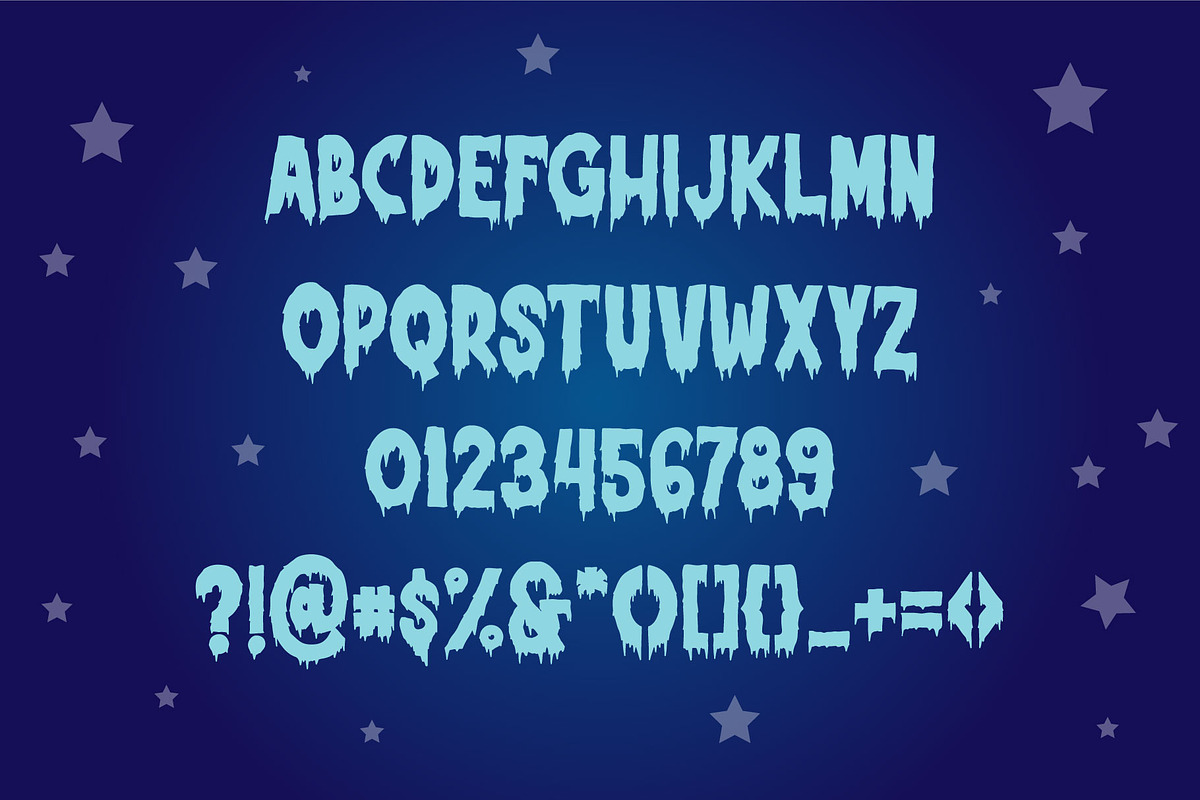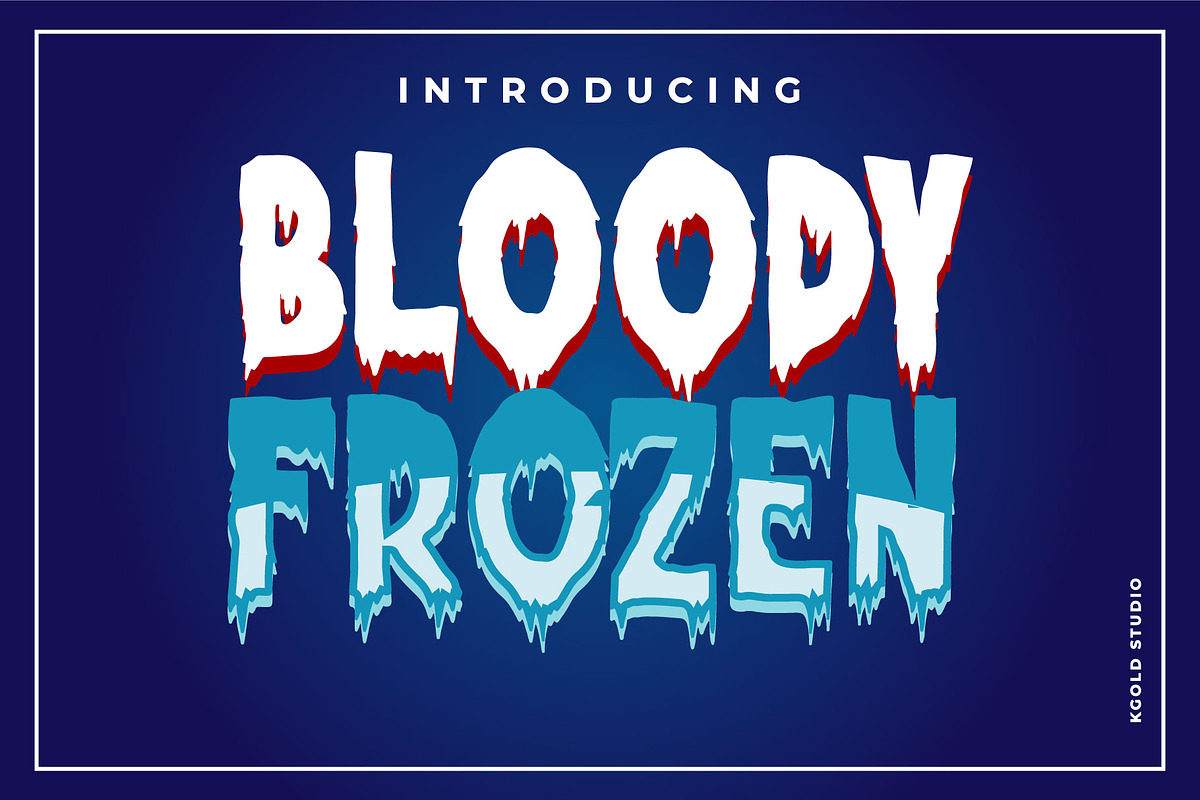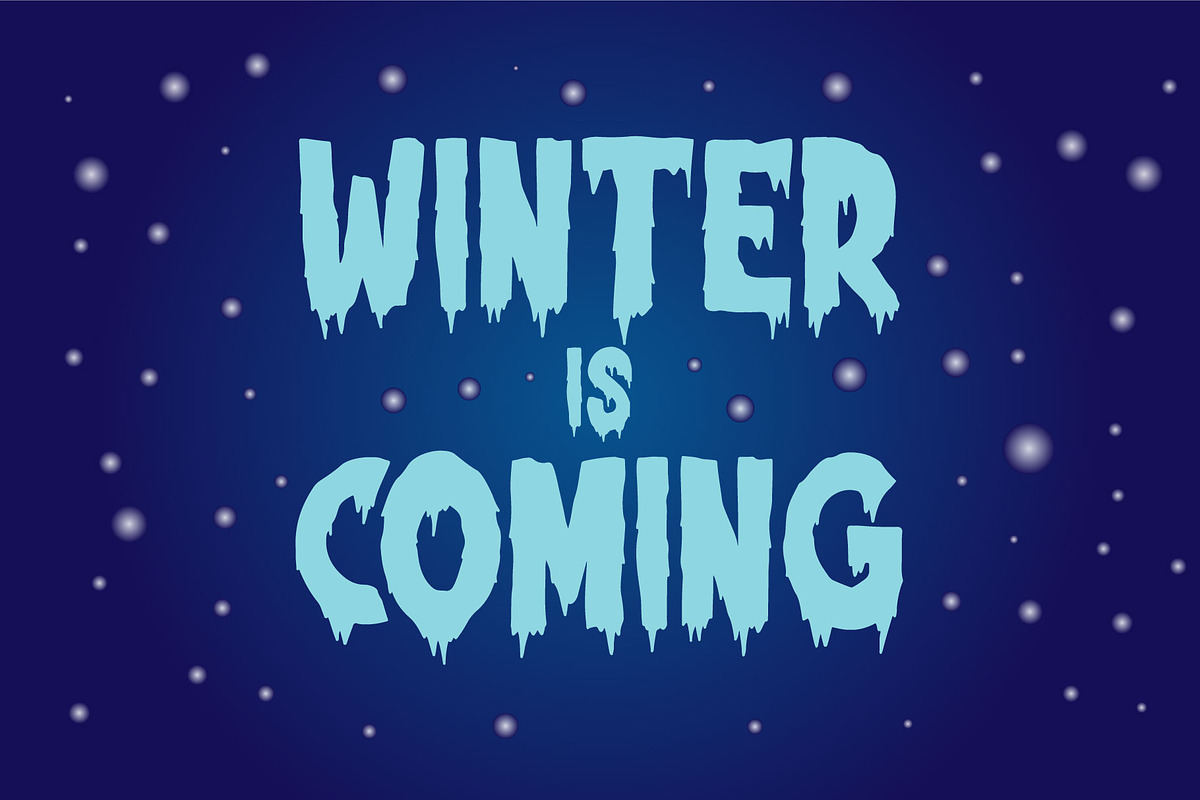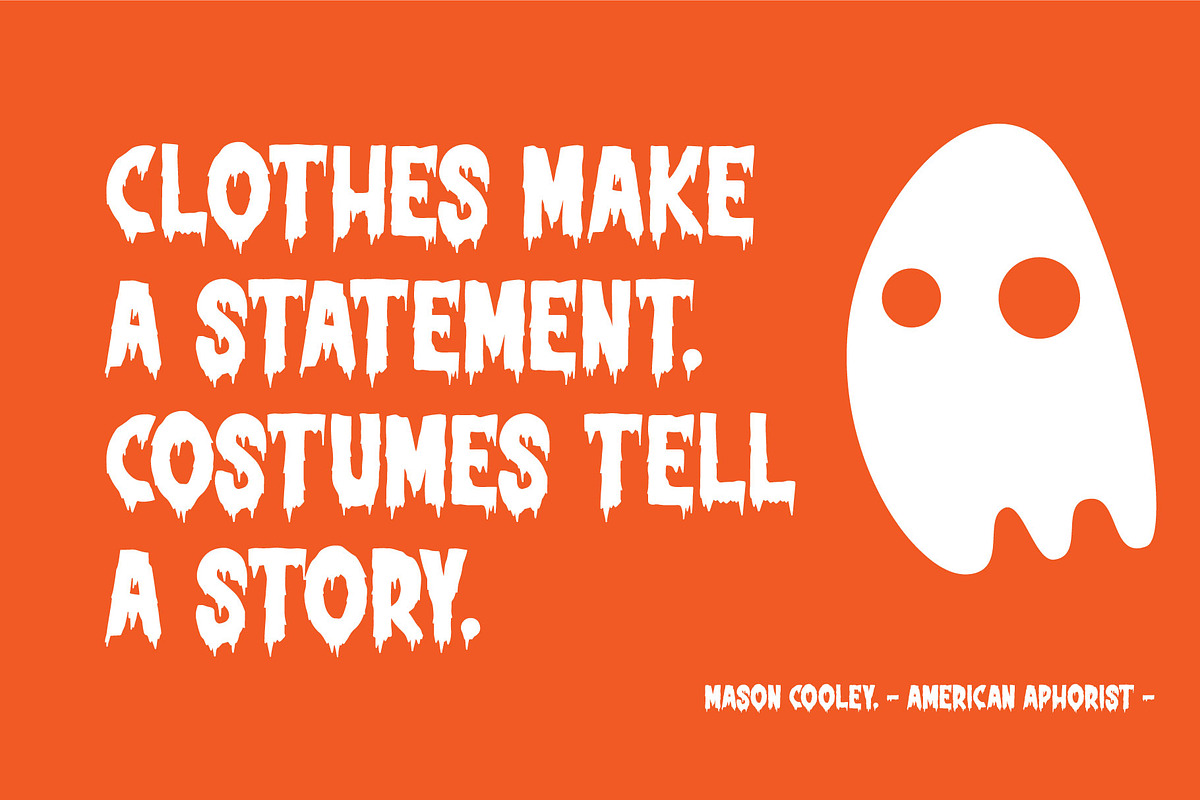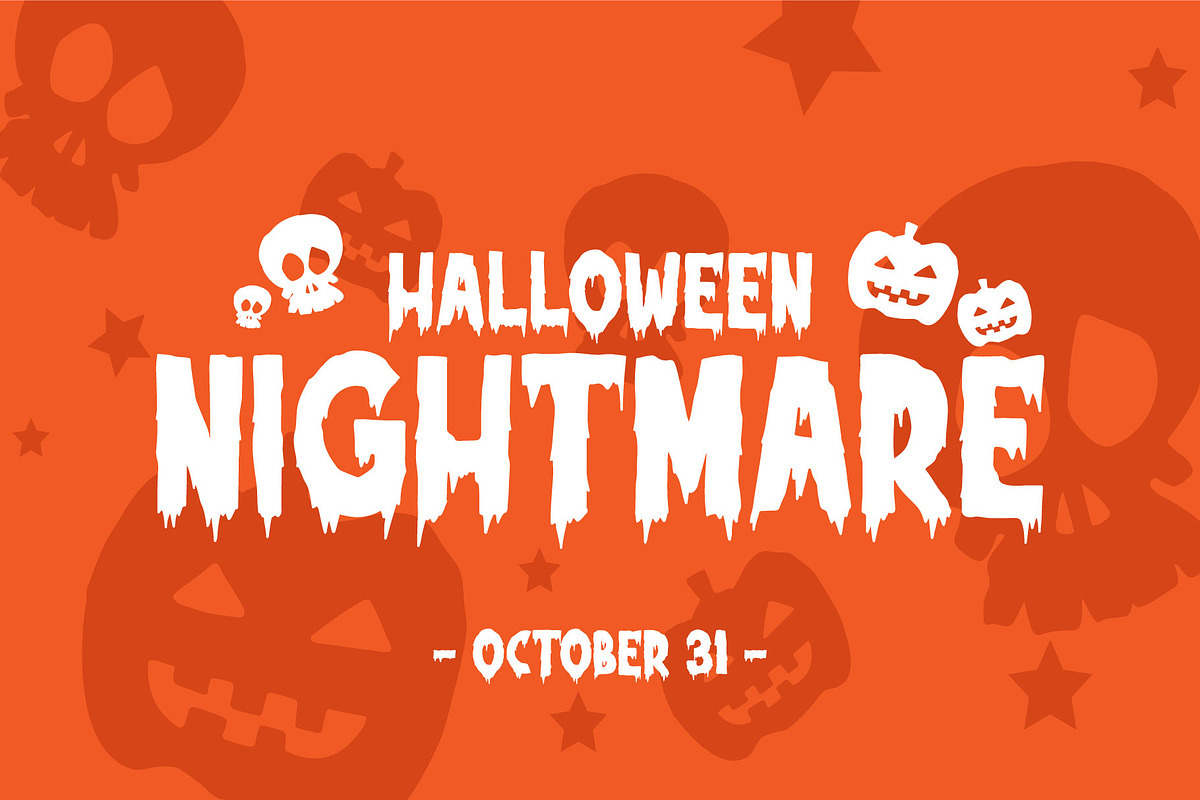
Bloody Frozen
Bloody Frozen is a fun, thick lettered and cool display font. Whether you’re using it for crafts, digital design, presentations, or making greeting cards, this font has the potential to become your favorite go-to font, no matter the occasion!